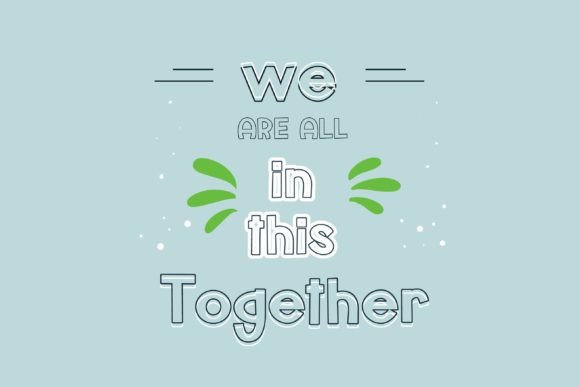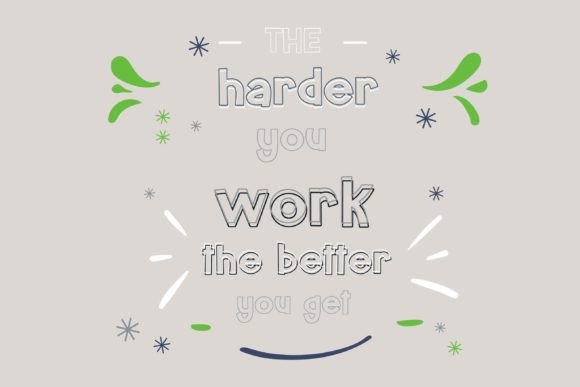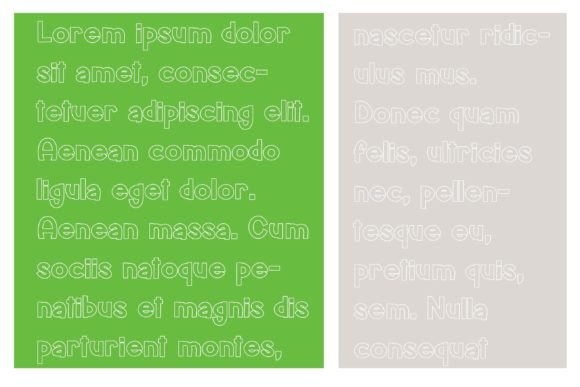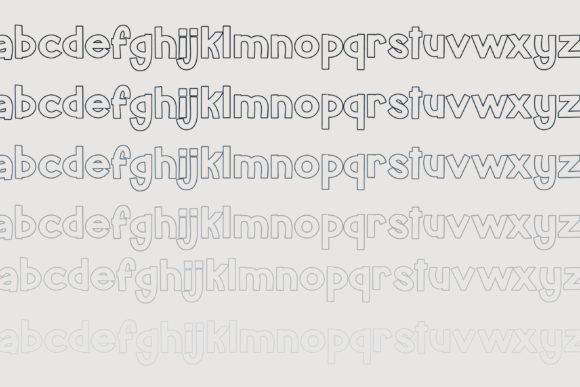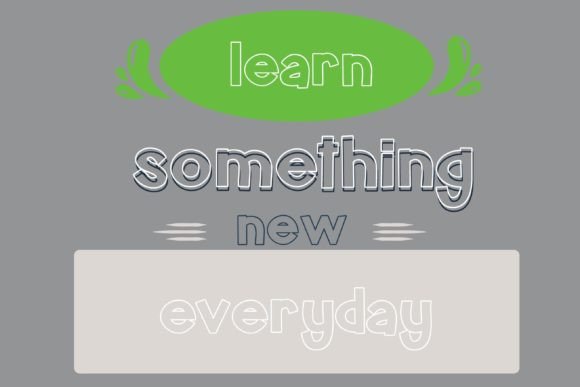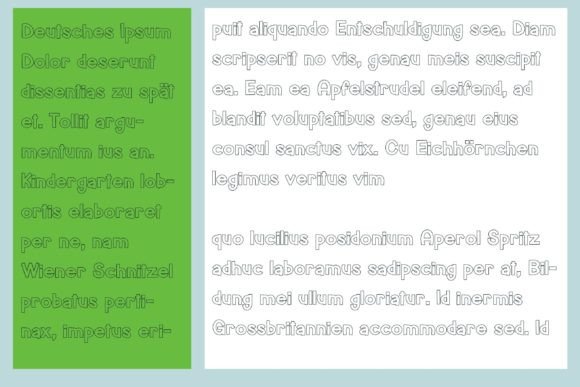
Bringing Creativity to the Classroom: The Homeschool Hollow Font
Do you remember the excitement of coloring in your favorite illustrations as a child? The feeling of bringing a blank page to life with vibrant colors and imagination? For designers working on school or children-related projects, this creative moment can be a refreshing inspiration. Whether you’re crafting educational materials, designing a children’s book, or creating a fun activity for a homeschooling group, you need a font that sparks imagination and engagement.
Enter the Homeschool Hollow Font, a hand-crafted sans serif outline font that invites users to color in and customize their designs. This versatile font is not just a visual element, but a tool to encourage creativity and self-expression. For designers, the Homeschool Hollow Font is a valuable asset that can elevate any project and make it more interactive and engaging.
- Unique Characteristics: Homeschool Hollow Font features a unique, hand-drawn design with a minimalist aesthetic, making it perfect for educational and creative projects.
Homeschool Hollow Font Review
I recently had the chance to work with the Homeschool Hollow Font, and I must say it’s a unique and eye-catching addition to any design project.
- Handwritten feel: The Homeschool Hollow Font has a distinct, handwritten feel that’s perfect for adding a personal touch to educational materials.
- Easy to read: Despite its handwritten appearance, the font is surprisingly easy to read, making it a great choice for longer blocks of text.
- Customization options: The font offers a range of customization options, including different font sizes and styles, which can be useful for creating visually appealing designs.
- Limited compatibility: I found that the font doesn’t work well with certain font sizes or styles, which can be frustrating if you’re trying to create a specific design.
- Not ideal for body text: While the font is great for headings or titles, it’s not the best choice for body text, as it can be difficult to read in smaller sizes.
The Homeschool Hollow Font is a great choice for educational materials or designs that require a personal, handwritten touch. While it has some limitations, it’s a unique and eye-catching addition to any project. I’d definitely consider using it again in the future.
The Homeschool Hollow Font is ideal for educational materials, such as worksheets, lesson plans, and presentations. It is also suitable for creative projects, such as invitations, posters, and greeting cards.